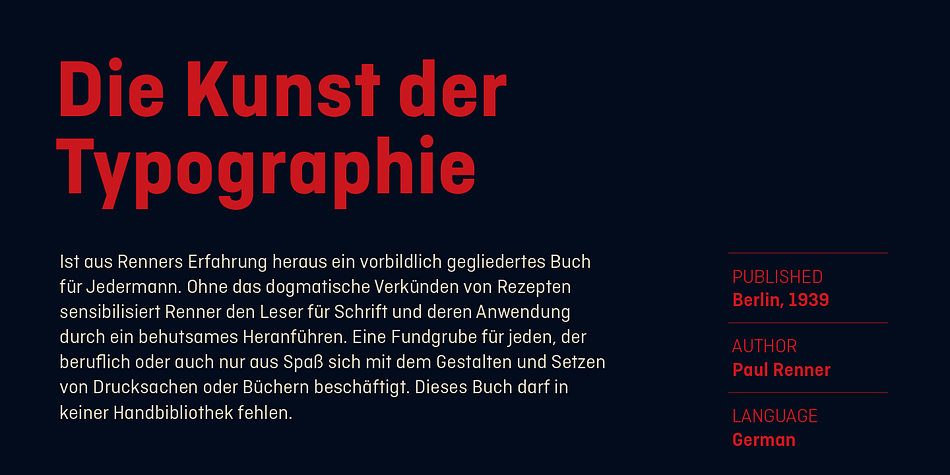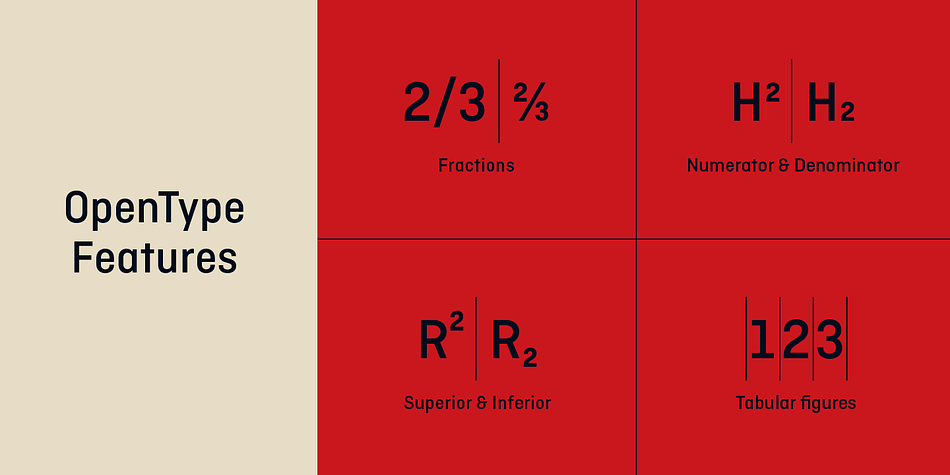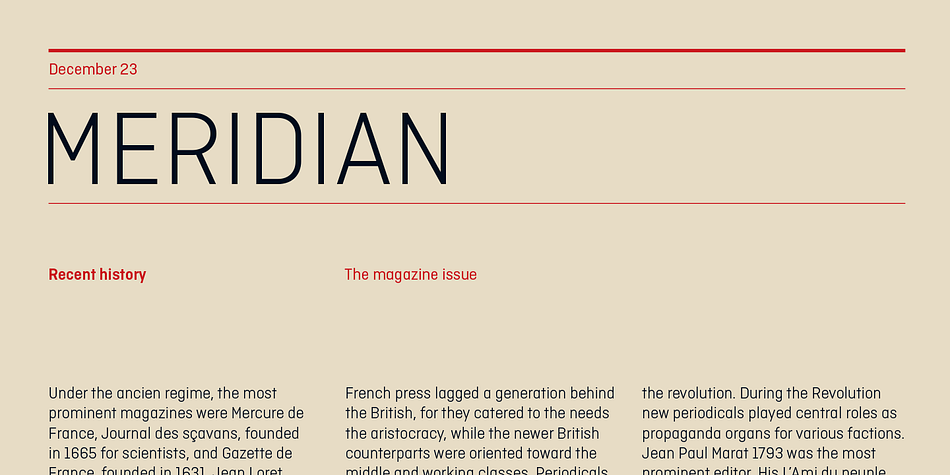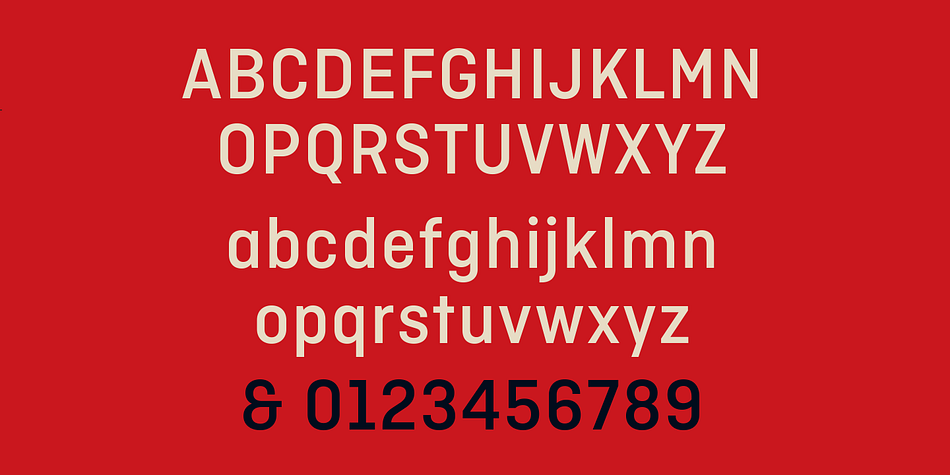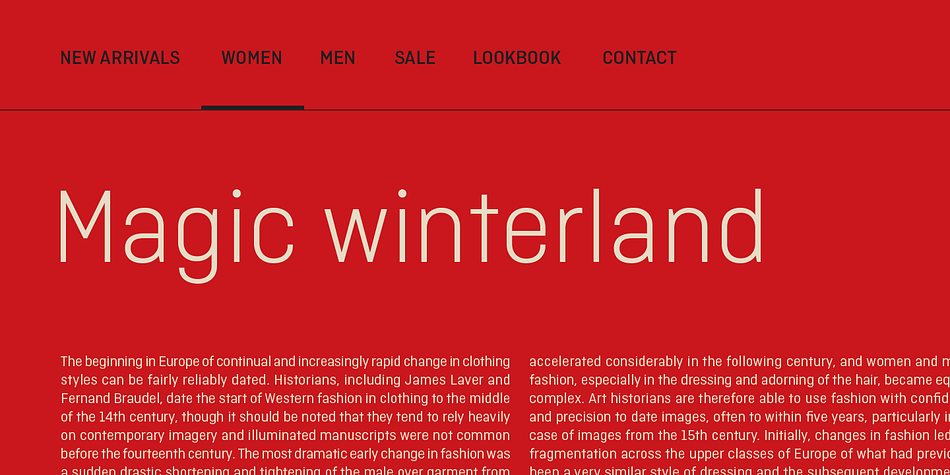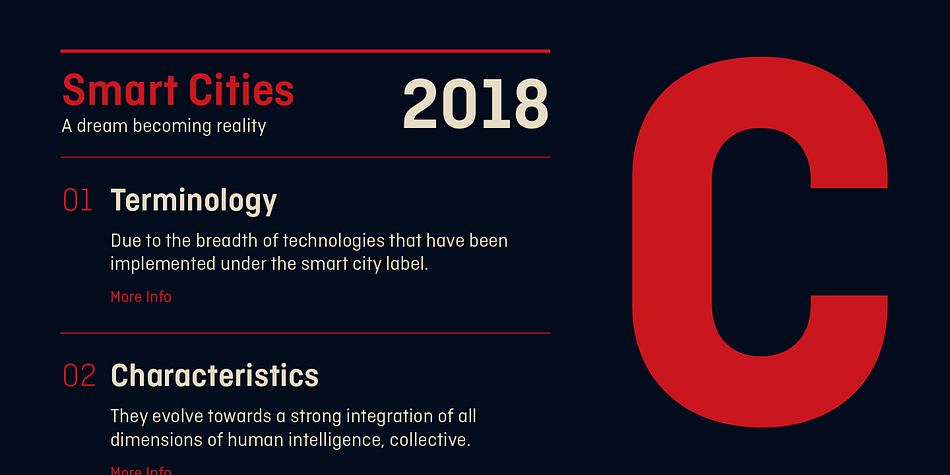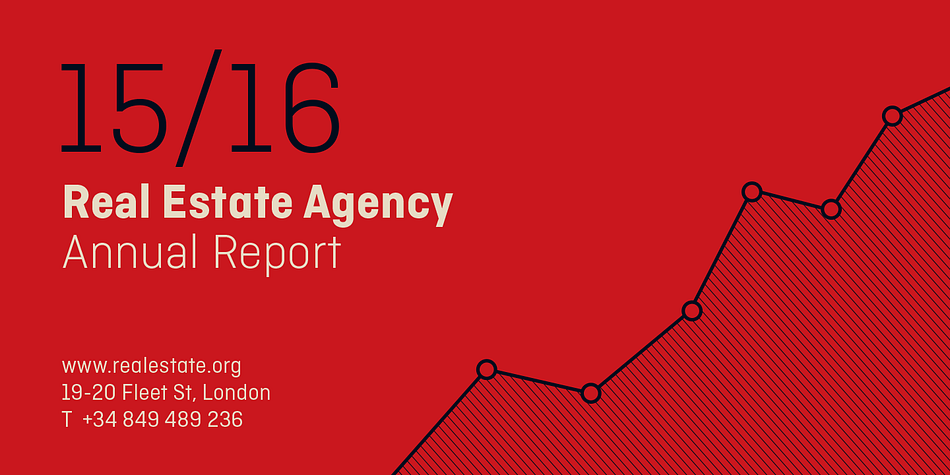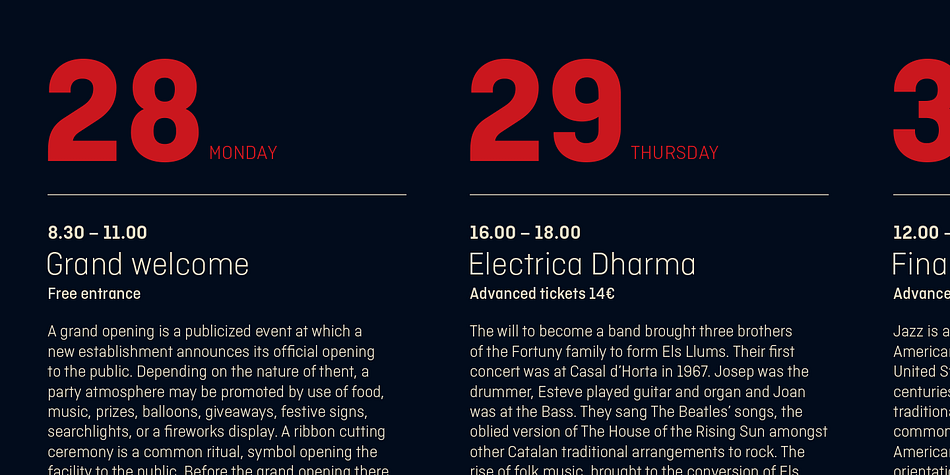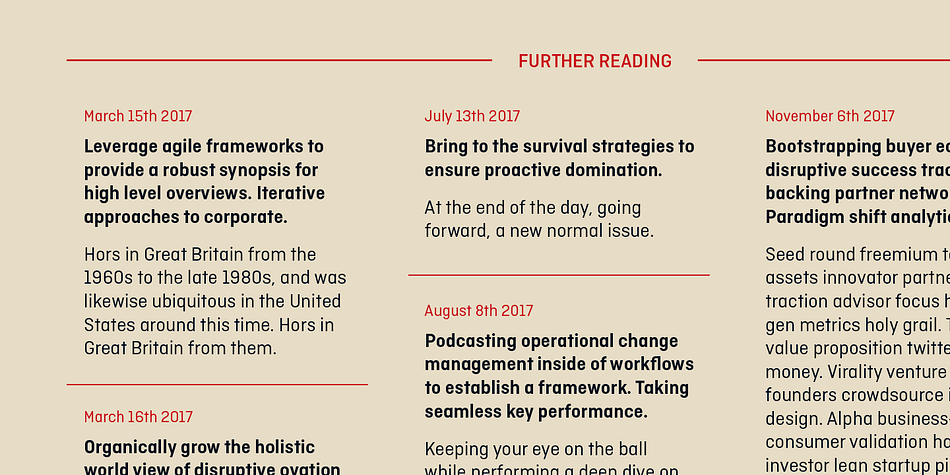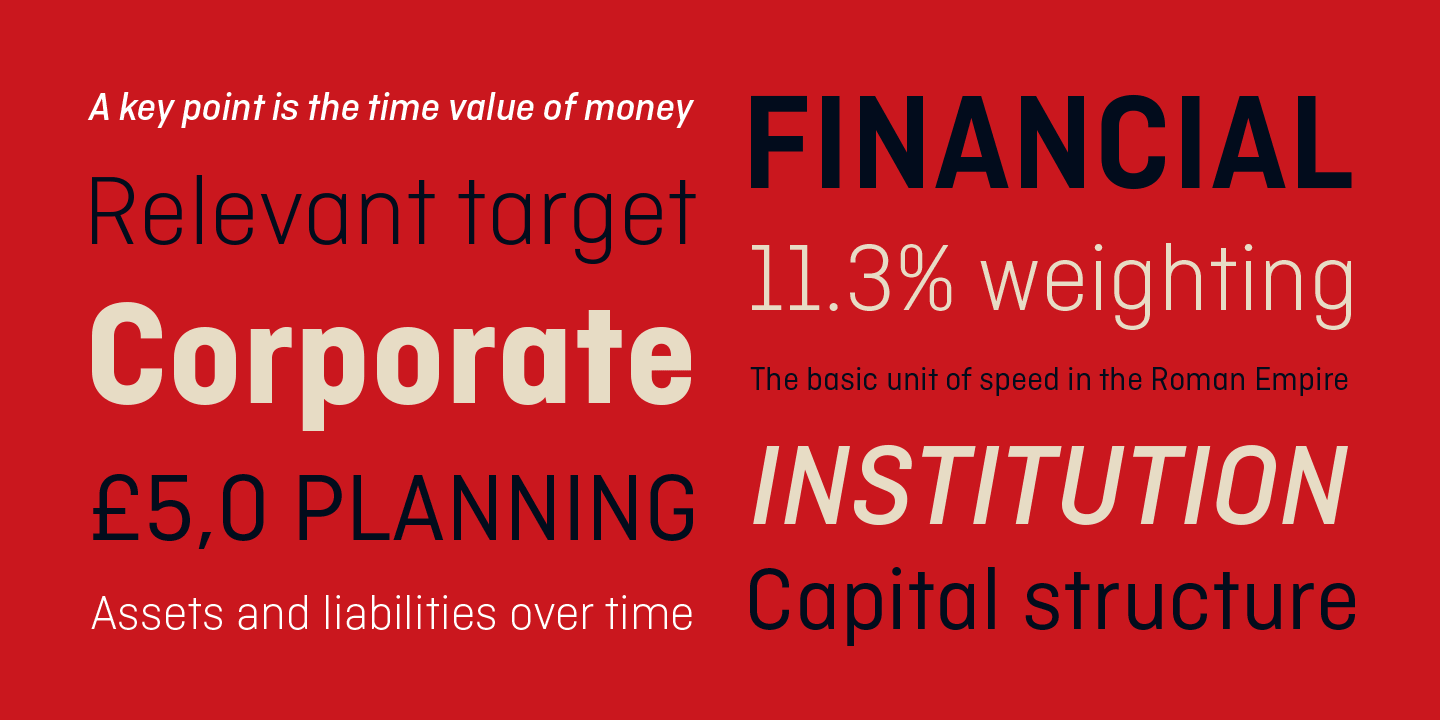
Designed by Eduardo Manso, Ciutadella is a sans serif font family. This typeface has ten styles and was published by Emtype Foundry.
Ciutadella was originally commissioned by Mario Eskenazi’s studio. It is a versatile geometric sans serif, a simple, clean and direct family. Its power resides in an overhaul simplicity that reflects an “open” personality, easily suitable to be used across a wide range of applications, from identity systems to publications. Although it has been conceived to be used as a display typeface, it performs well in intermediate length texts mostly because of some specific characteristics such as the alternate two-story ‘a’.